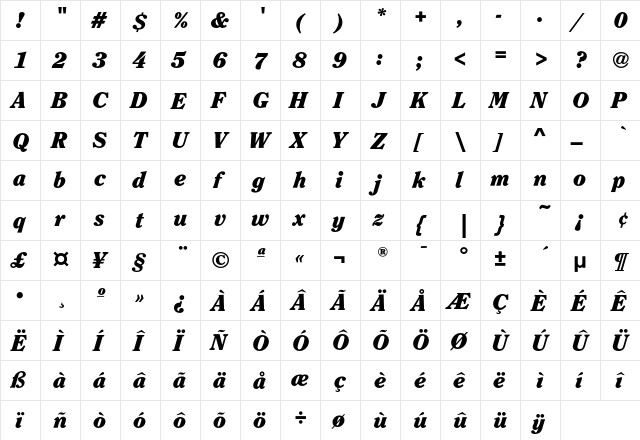
ClearfaceEF-BlackItalic Regular
Design Context for ClearfaceEF-BlackItalic Typeface
ClearfaceEF-BlackItalic offers clean, dependable letterforms without strong stylistic allegiance, making it a practical choice for designers who need flexibility. Its italic angle brings a sense of urgency and motion to the letterforms.